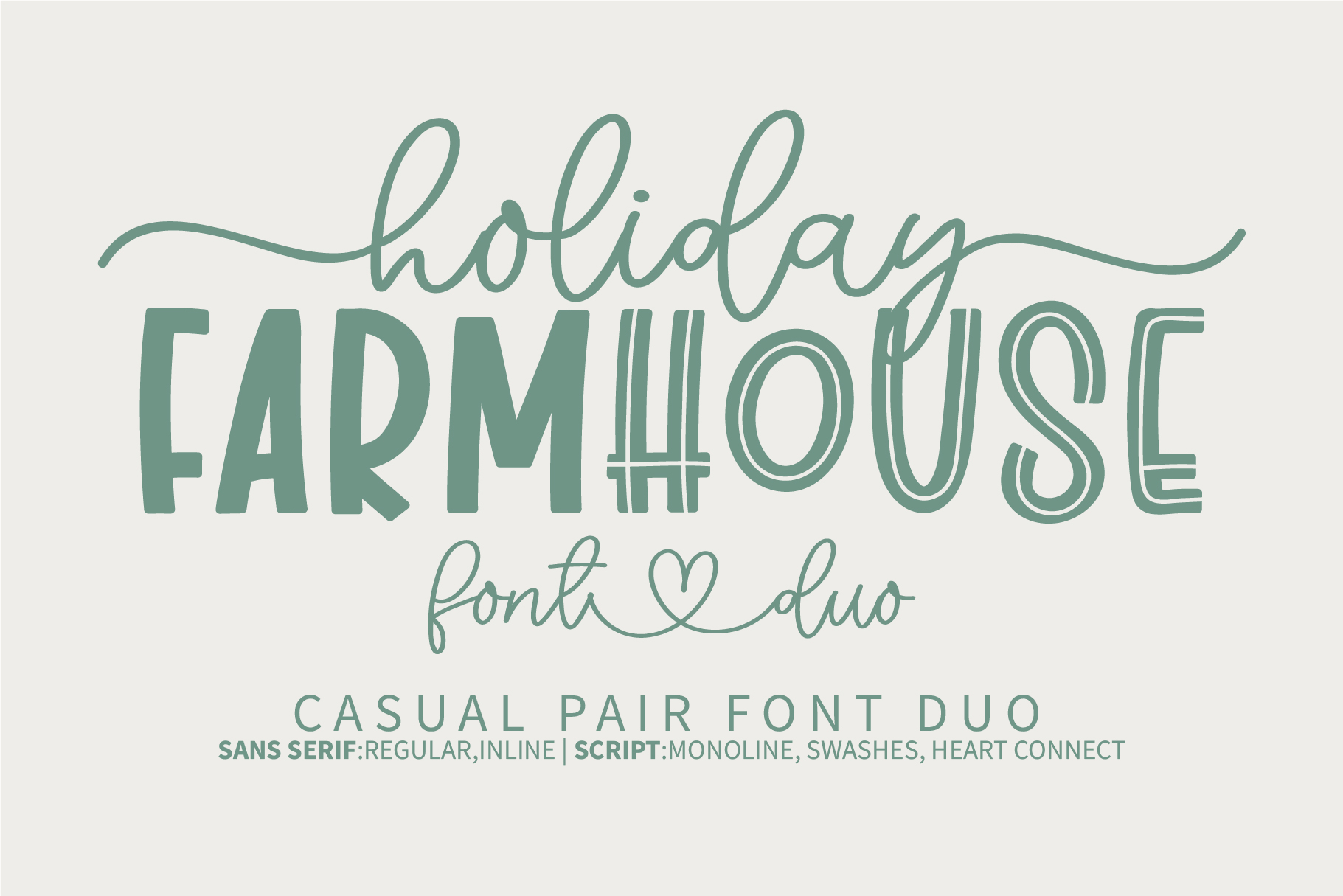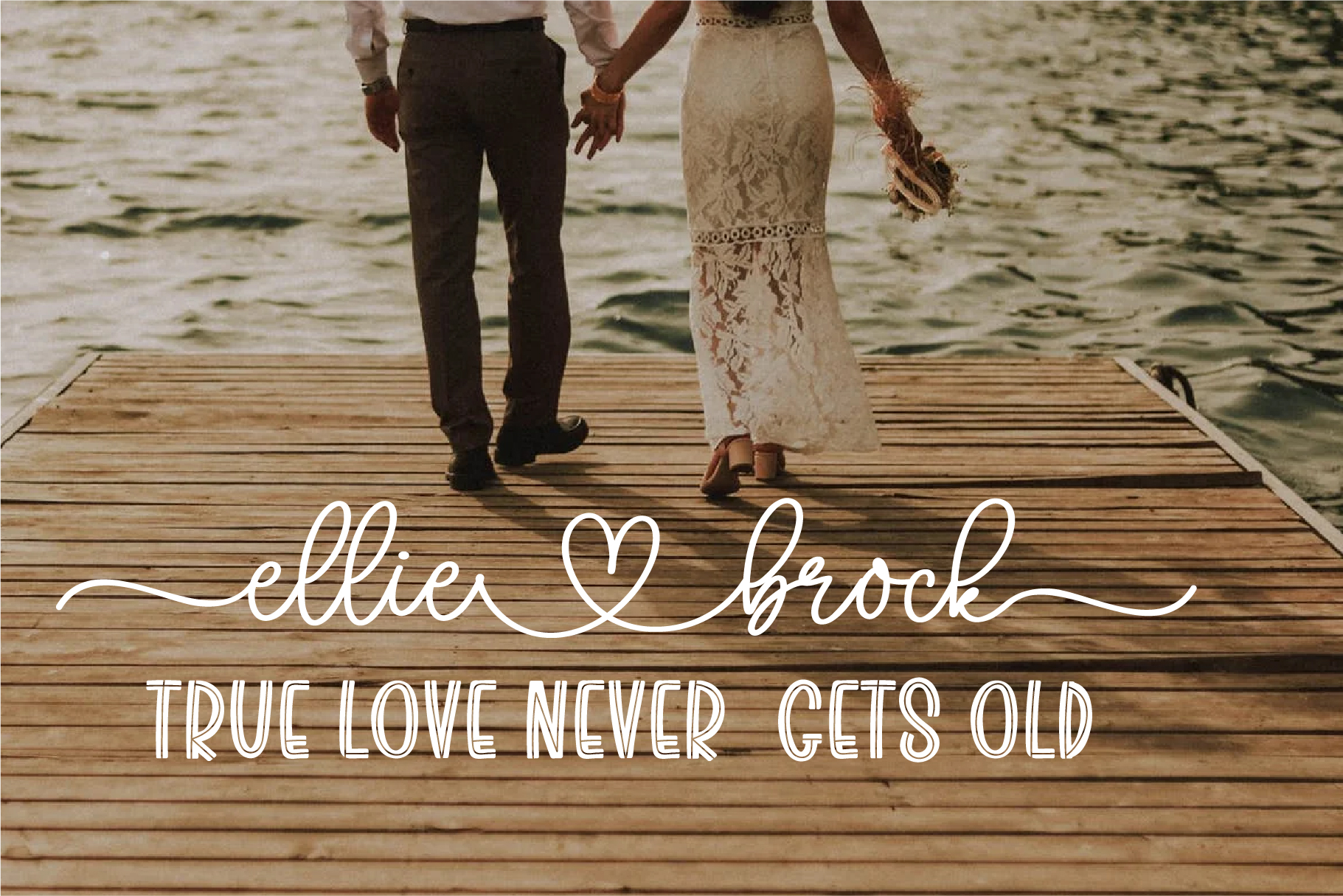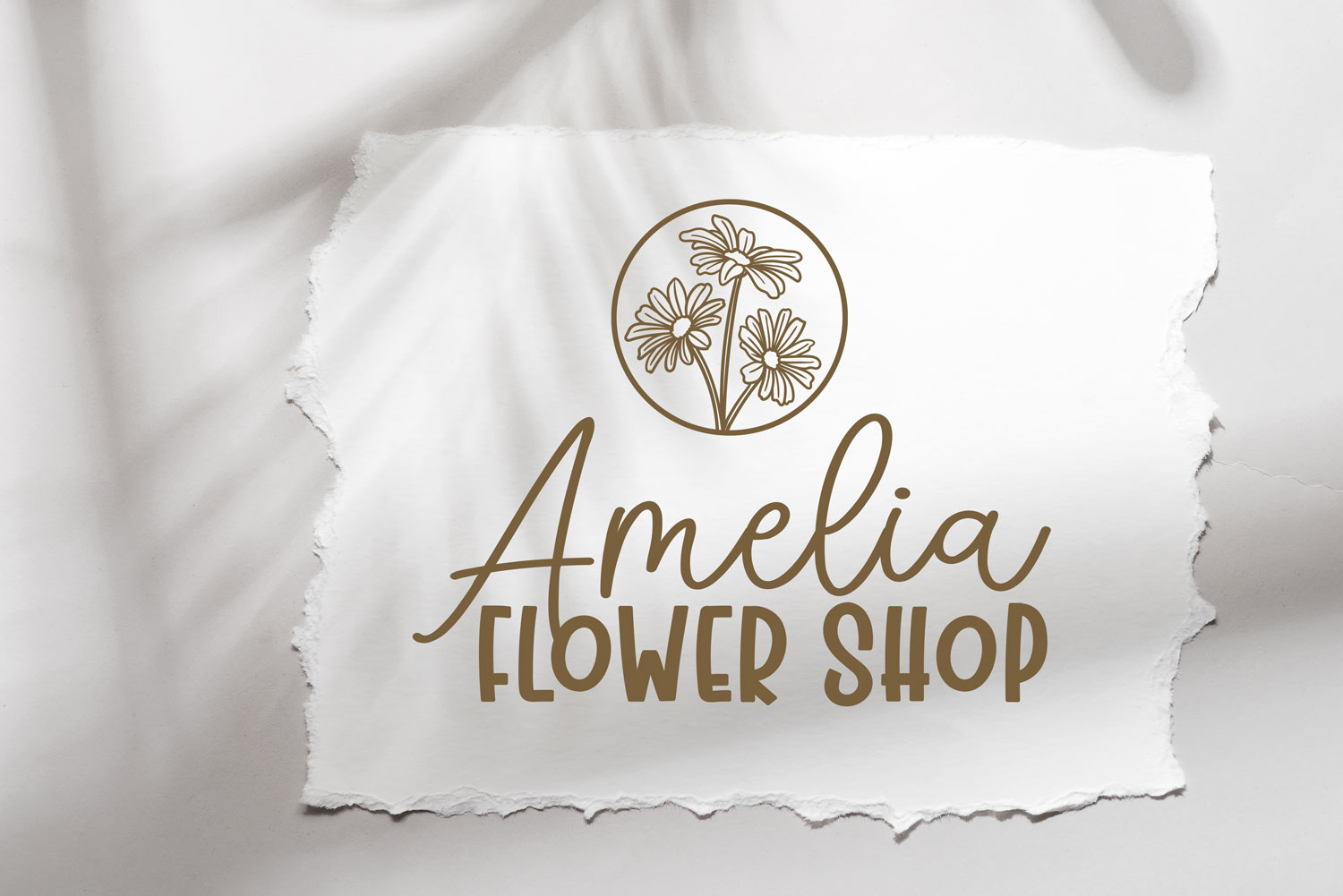
Holiday Farmhouse Script Font
It’s a duo-styled handwritten font that feels equally charming and delicate. Holiday Farmhouse will turn any creative idea into a standout! You can successfully use it for Christmas cards, wedding designs, local signs, branding, logos, quotes, photography projects, birthday cards, and so much more!